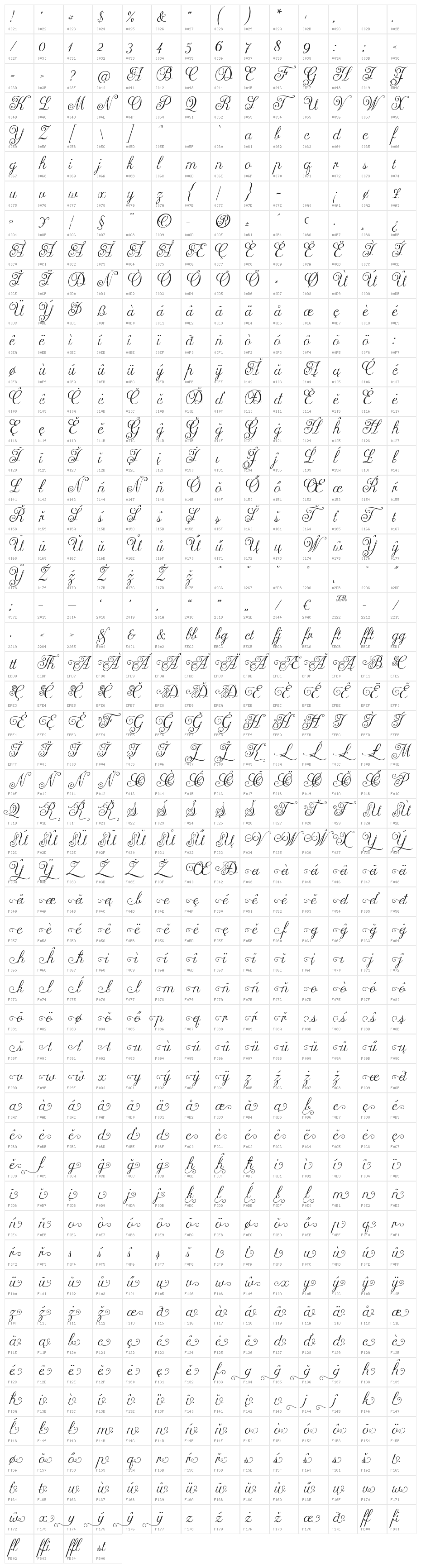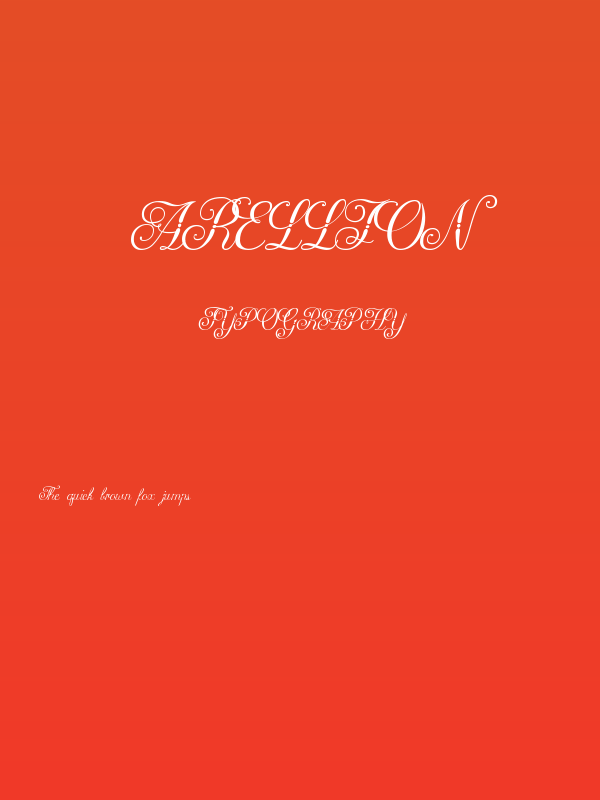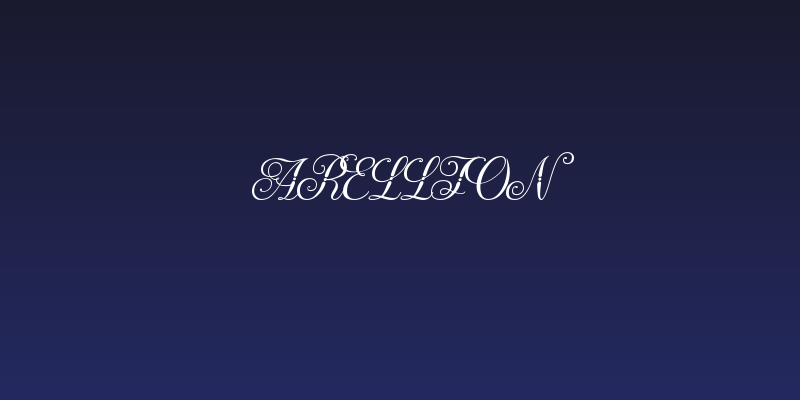
Arellion Font
| Caso d'uso | Logos, Invitations, Branding |
| Progetti proposti | Ideal for wedding invitations, luxury branding, high-end product packaging, and elegant event signage. |